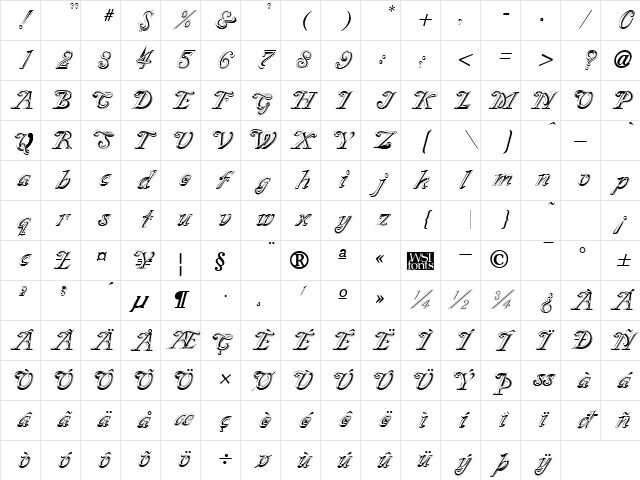
SilverPlate Regular
Design Context for SilverPlate
SilverPlate is a composed and adaptable typeface that performs quietly and consistently across a wide range of design contexts.